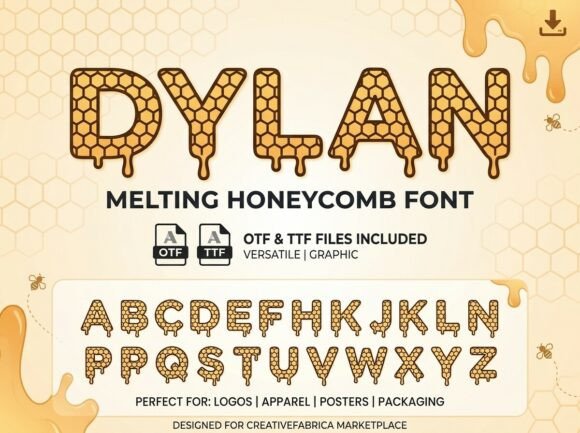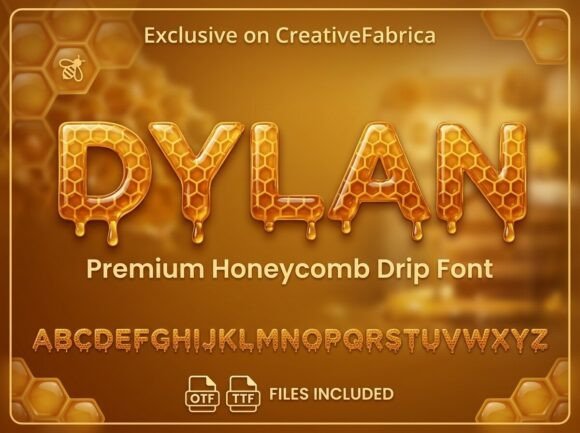
Introducing Dylan Font: A Stunning Decorative Display Font
Are you tired of using the same old fonts for your creative projects? Look no further than Dylan Font, a breathtaking decorative display font designed to turn heads. With its unique artistic elements and strong visual personality, this font is perfect for creators who want to break away from the ordinary and make a statement.
What Makes Dylan Font Special?
Dylan Font is a versatile decorative font that is specifically designed to be the center of attention. Its stunning artistic elements and strong visual personality make it perfect for a variety of creative projects, including bold headlines, artistic logos, and creative packaging. Whether you’re a designer, craftsperson, or DIY enthusiast, this font is sure to elevate your work to the next level.
Key Features of Dylan Font
- Unique Artistic Elements: Dylan Font features unique artistic elements that set it apart from other fonts. Each letter is carefully crafted to make a statement and add a touch of elegance to your creative projects.
- Strong Visual Personality: This font has a strong visual personality that is sure to grab attention. Its bold and eye-catching design makes it perfect for headlines, logos, and other creative projects where you want to make a statement.
- Versatile: Dylan Font is versatile enough for a variety of creative projects, including bold headlines, artistic logos, and creative packaging.
- Professional and Polished Finish: Despite its bold and artistic design, Dylan Font maintains a professional and polished finish that is suitable for even the most high-end creative projects.
Why Choose Dylan Font?
There are many reasons why Dylan Font is the perfect choice for your creative projects. Here are just a few:
- Stand Out from the Crowd: With Dylan Font, you can create creative projects that stand out from the crowd and grab attention.
- Elegance and Sophistication: This font adds a touch of elegance and sophistication to any creative project.
- Perfect for Display Text: Dylan Font is specifically designed for display text, making it perfect for headlines, logos, and other creative projects where you want to make a statement.
How to Use Dylan Font
Dylan Font is easy to use and can be incorporated into a variety of creative projects. Here are a few ideas to get you started:
- Headlines and Titles: Use Dylan Font to create bold and eye-catching headlines and titles for your blog posts, articles, and other written content.
- Logos and Branding: This font is perfect for creating artistic logos and branding materials that make a statement.
- Creative Packaging: Use Dylan Font to add a touch of elegance and sophistication to your creative packaging projects.
In conclusion, Dylan Font is a stunning decorative display font that is perfect for creators who want to break away from the ordinary and make a statement. With its unique artistic elements, strong visual personality, and versatility, this font is sure to elevate your creative projects to the next level. Whether you’re a designer, craftsperson, or DIY enthusiast, Dylan Font is a great choice for anyone looking to add a touch of elegance and sophistication to their work.